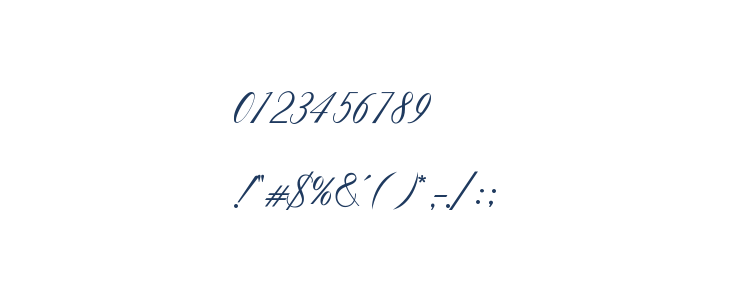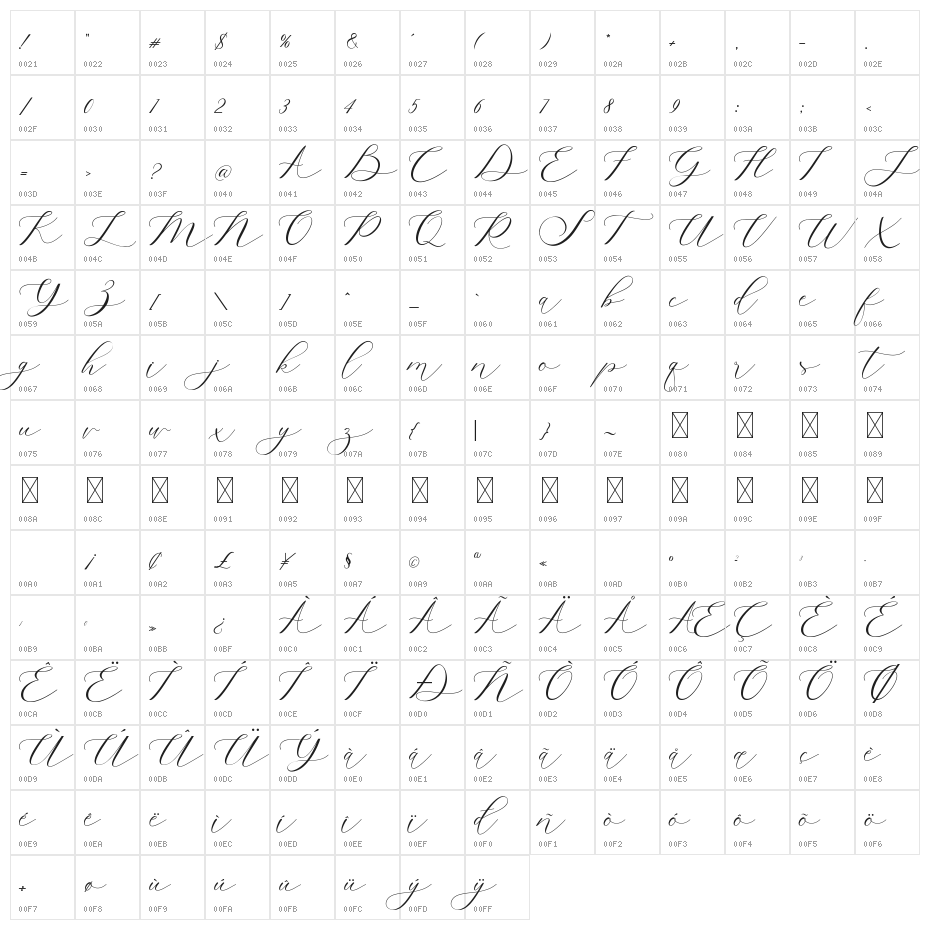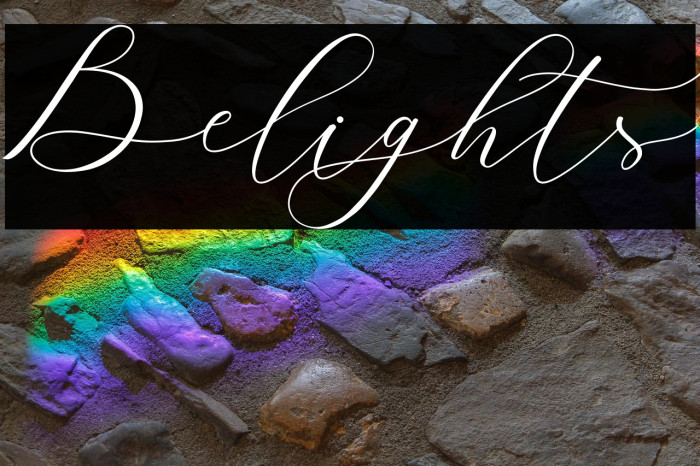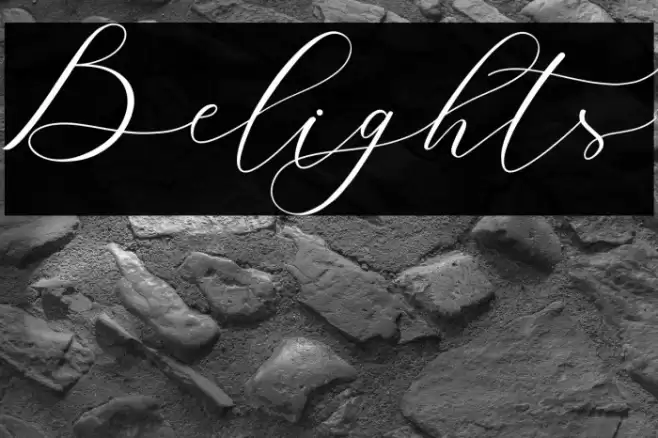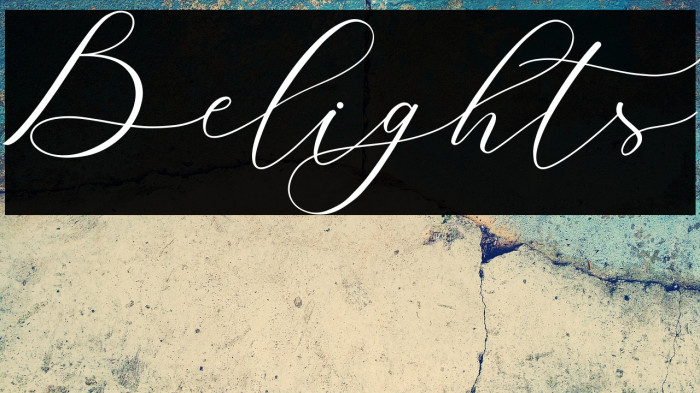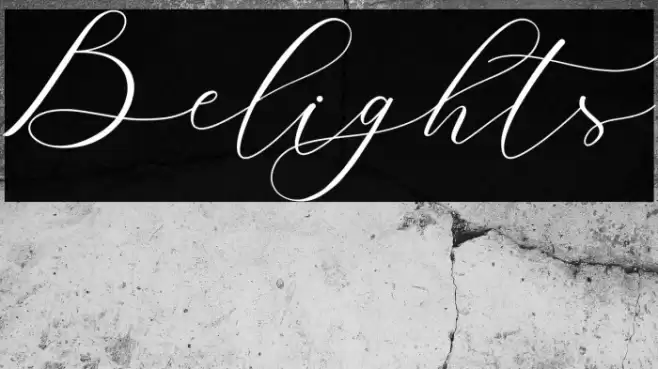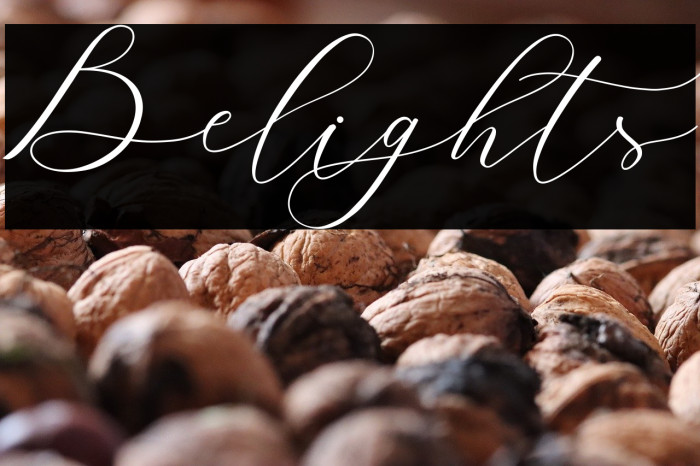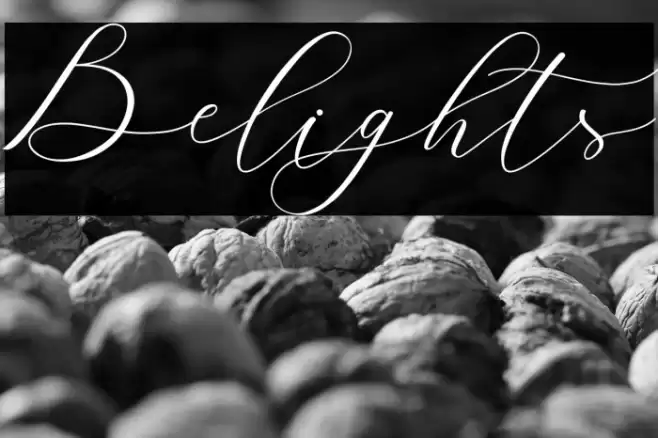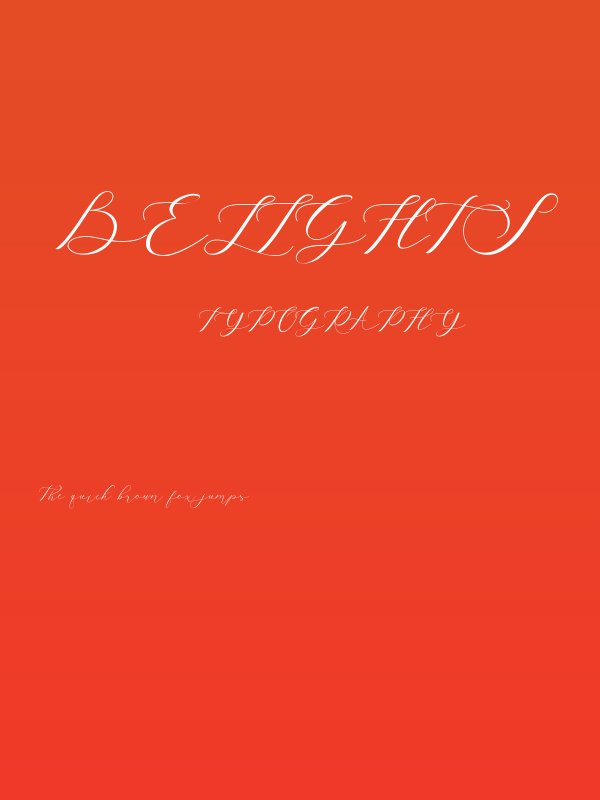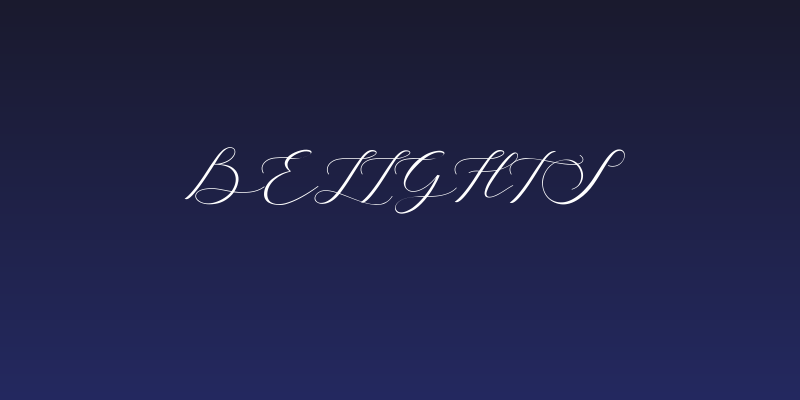
Belights Font
Belights Description
This elegant script font features flowing, interconnected letters that exude sophistication and grace. The uppercase letters are characterized by their sweeping curves and delicate loops, while the lowercase letters maintain a consistent fluidity that enhances readability. The numerals are distinct and stylish, complementing the overall aesthetic. Special characters are thoughtfully designed to match the font's refined style. This font is perfect for projects that require a touch of elegance and class, such as wedding invitations, upscale branding, and luxury product packaging.
| Overall Style | Elegant, Sophisticated |
| Proposed Projects | Ideal for wedding invitations, luxury branding, elegant stationery, and high-end product packaging. |